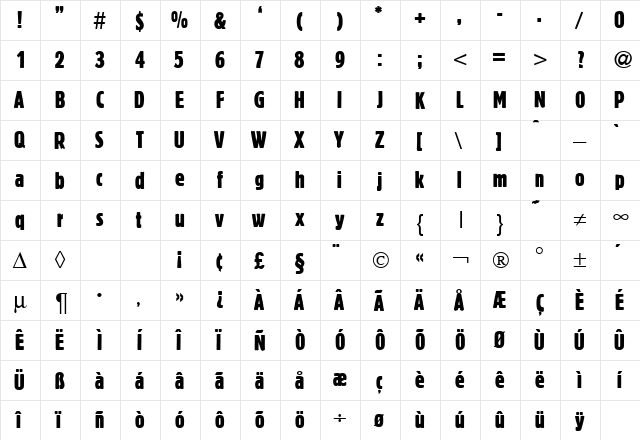
BlofeldExtraCond Regular
Design Context for BlofeldExtraCond Typeface
BlofeldExtraCond takes a measured approach to typography — its balanced proportions and neutral character make it a reliable workhorse for both digital and print work. The condensed width makes it efficient for tight spaces without sacrificing legibility.